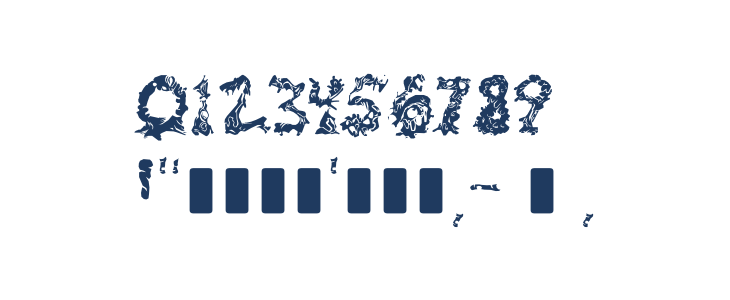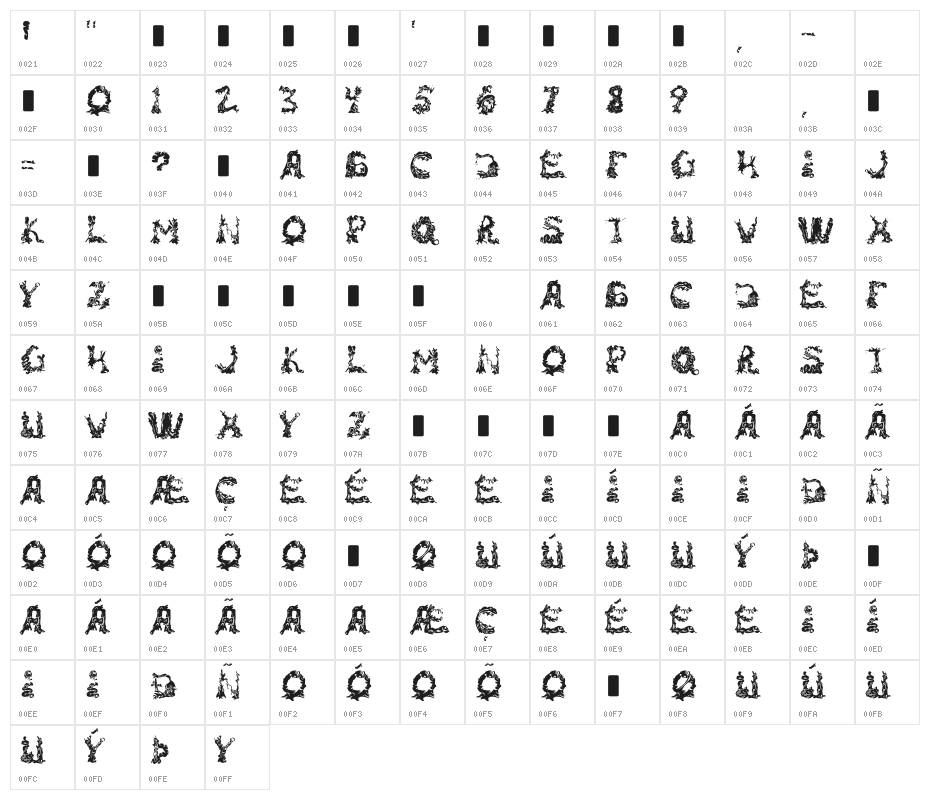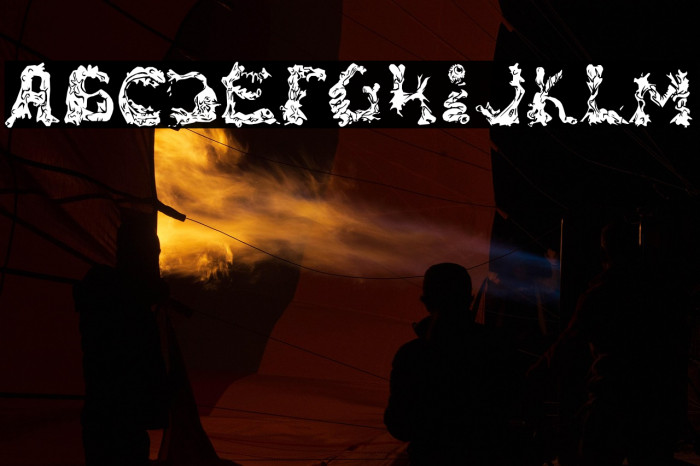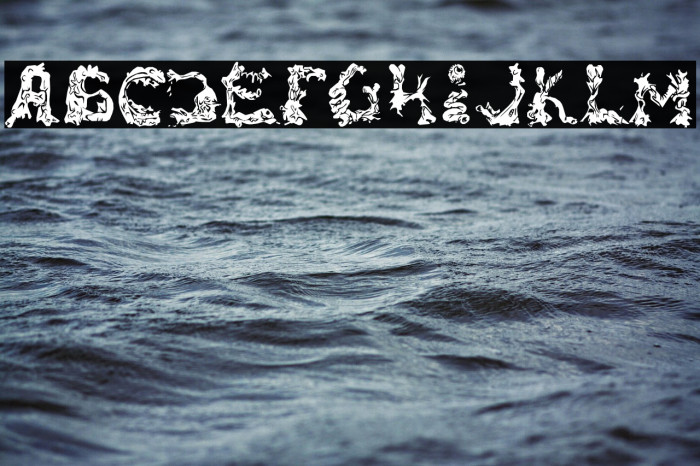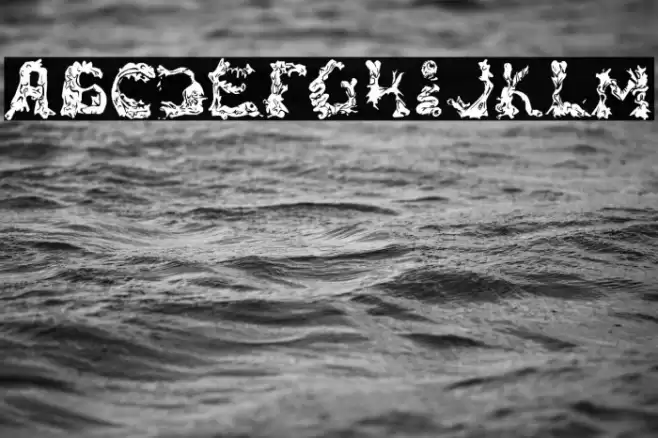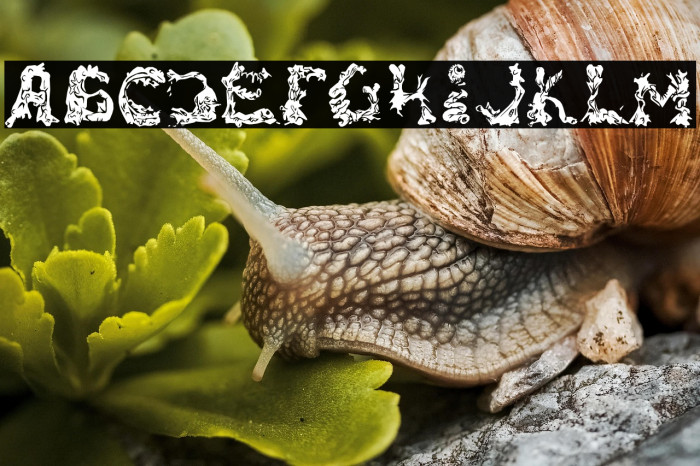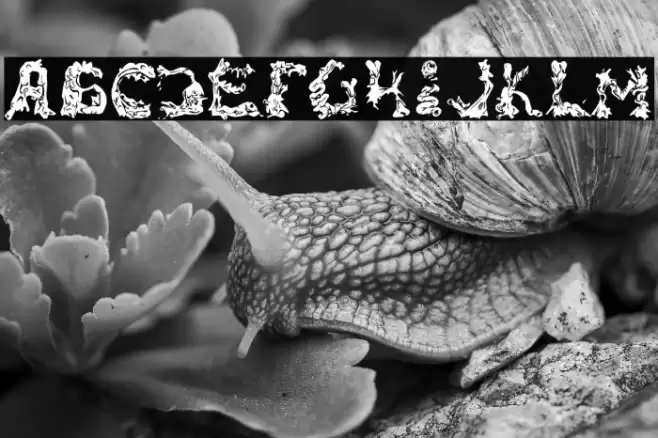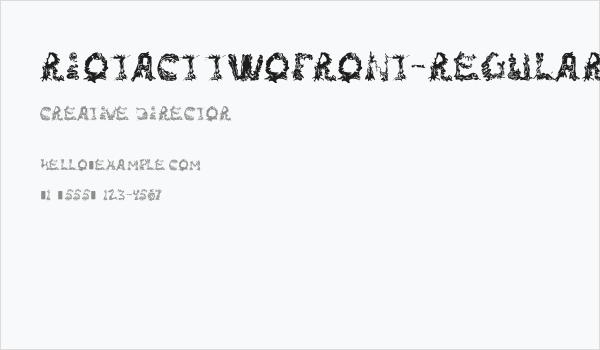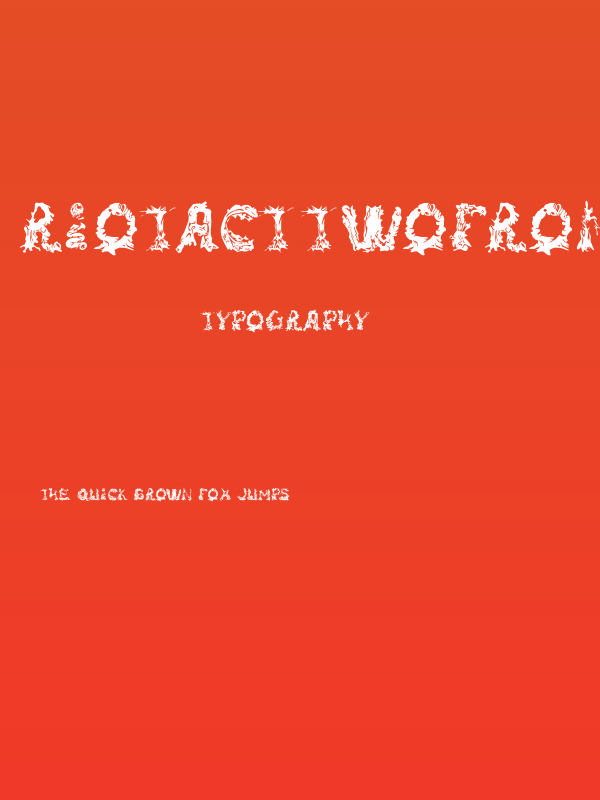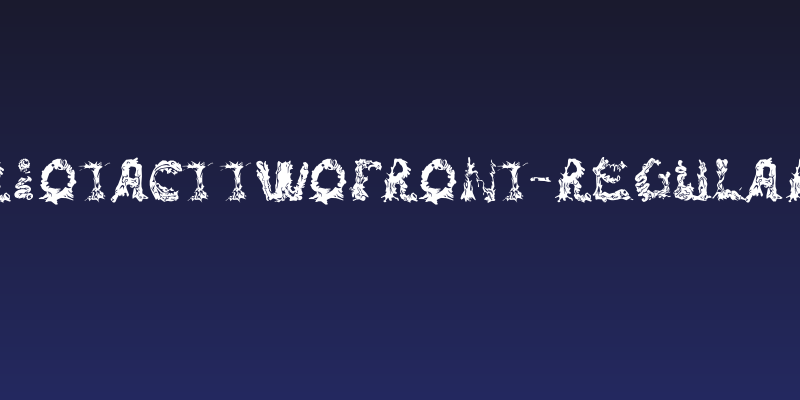
RiotActTwoFront-Regular Font
RiotActTwoFront-Regular Description
This font features an intricate and chaotic design, with each character appearing as if it's composed of swirling, organic shapes. The letters are highly decorative, with a sense of movement and energy, resembling flames or vines intertwining. The complexity of the design makes it stand out, creating a bold visual impact. Despite its elaborate style, each letter remains distinct and recognizable, though the overall appearance is more suited for artistic or thematic use rather than readability in large blocks of text.
| Proposed Projects | Ideal for album covers, posters, or any project requiring a bold, artistic statement. |